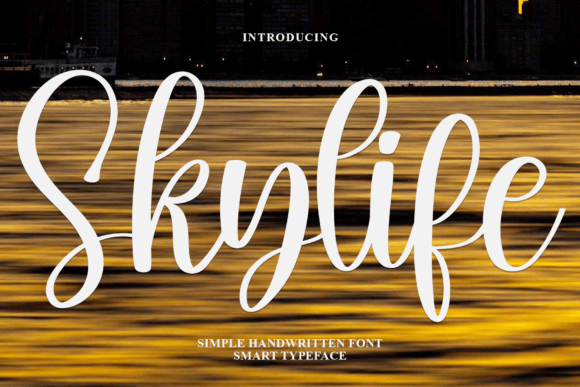
Unleash your creativity and leave a lasting impression with Skylife Font – the ultimate choice for crafting modern resumes that stand out. Step into a world of captivating handwritten elegance where your words dance with grace. With its versatility and wide range of applications, Skylife Font isn't just a font; it's an artistic expression that reflects your unique personality.
Transport yourself to a realm of charm and sophistication as you create stunning greeting cards that exude warmth and heartfelt emotions. Let your imagination soar as you craft captivating headlines that command attention and ignite curiosity. Skylife Font is your secret weapon for capturing hearts and making a statement.
Envision your resume transformed into a masterpiece of visual intrigue. Skylife Font's enchanting curves and delicate strokes add a touch of refinement and romance to every word, ensuring your skills and experiences shine brighter than ever before. Watch as potential employers are drawn to the allure of your thoughtfully crafted resume, setting you apart from the competition.
Skylife Font is more than just a collection of letters; it's an invitation to express your individuality and make a lasting impression. Its versatility knows no bounds, allowing you to effortlessly elevate your designs and add a touch of magic to any project. Whether you're a creative professional, a design enthusiast, or simply someone who appreciates the beauty of handwritten art, Skylife Font is your perfect companion.
Don't settle for ordinary when you can embrace the extraordinary. Embrace Skylife Font today and unlock a world of creative possibilities. Let your words dance, your designs flourish, and your resume shine brighter than ever before.